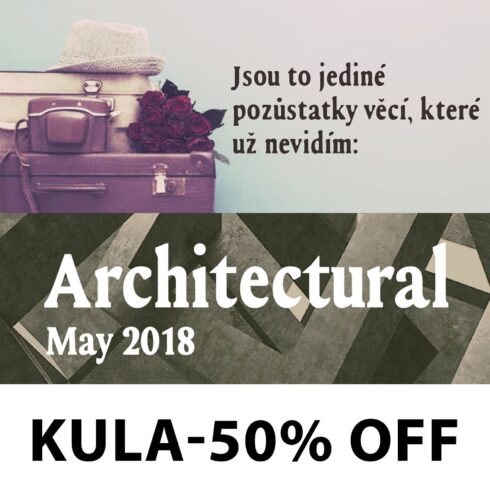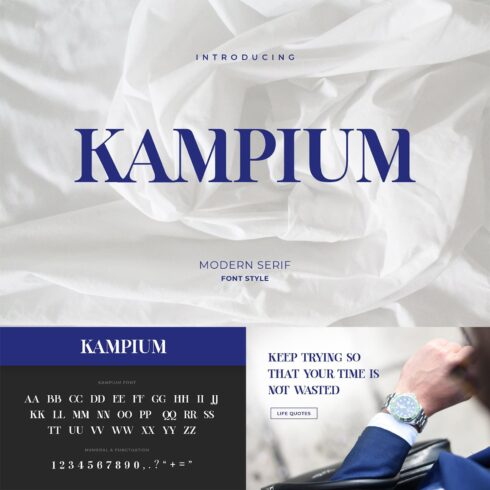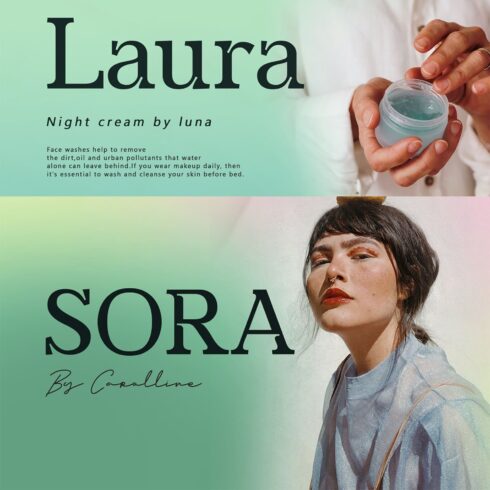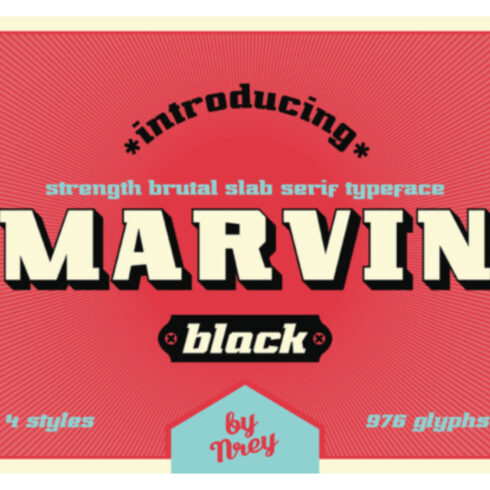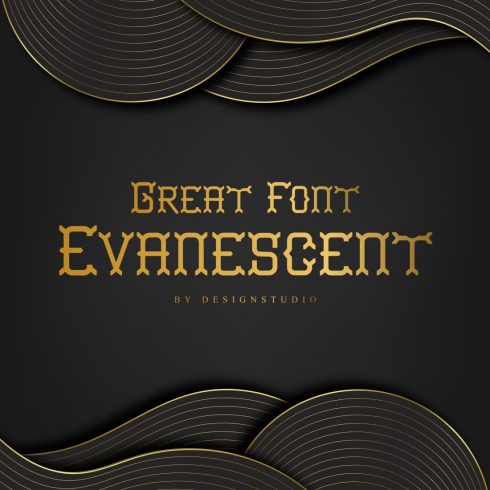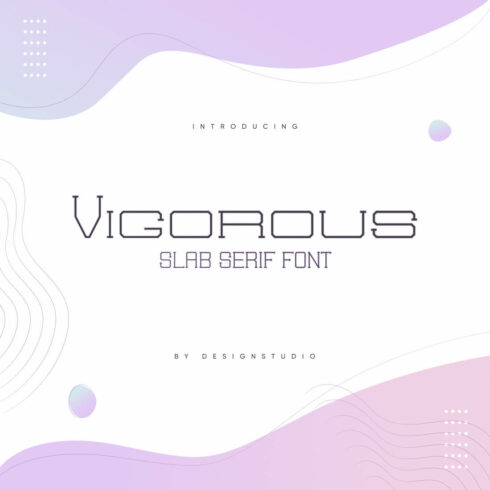
Slab Serif Fonts
If you want to make your content more interesting and engaging, you should consider using one of the slab serif fonts in the collection below. Among the available bundles, you can find many ultra-minimal, modern, condensed, or wide options. This is more than enough variety to emphasize your creativity in editorial, web, modern branding, apparel, packaging, and other design projects.“`html
Slab Serif Fonts Table
Slab Serif Font style Where to use the fonts?
Aptifer Slab (Black, Black Italic) Being devoid of overwhelming details, Aptifer Slab fonts fit well into the text flow. They don’t disturb your eyes, which makes reading convenient. This is why Aptifer Slab Serif font is widely used in newspapers and magazines, for book typography, corporate design, and signage.
Xenois Slab (Heavy, Heavy Italic) Xenois Slab fonts feature an incredible combination of different designs that can provide solutions for various design projects. These can be corporate reports, business correspondence, movie credits, or marketing campaigns. Having the same cap height, lowercase x-height, stem weights, and character shapes, Xenois Slab serves as an incredibly complementary set of font designs.
Soho (Condensed Heavy, Compressed Heavy) Soho fonts are smart, distinct, and trendy. Their visual design combines the elements of Renaissance, enabling versatility for corporate identity, product marketing, text, and display use.
PMN Caecilia (Roman, Italic) PMN Caecilia fonts work perfectly well in interactive design and print environments. They are intended to mimic the writing of a broad nib pen with considerable changes in stroke thickness. Being friendly, versatile, and convenient typefaces, they make the content easy to read.
LinoLetter (Medium, Medium Italic) LonoLetter Slab font needs to be used with contemporary typesetting and printing technologies. Being known for clarity and objectivity, it is suitable for Desktop, Web, DigitalAds, ePub, Server, and other multimedia applications.
Siserrif (Semibold, Semibold Italic) The use of Siserrif fonts is required to establish priority, make emphasis, and give the right hints to the audience. Being effective attention seekers, they are widely used for making posters, brochures, newspapers, magazines, and web layouts. By giving a sophisticated vibe to the content, they make your message more striking.
Memphis (Light, Light Italic) Memphis fonts are marked with the geometric slab serif visual concept. They provide the clarity of a sans serif with increased readability. They are perfectly suitable for brand and display use.
Clarendon (Bold, Bold Condensed) Clarendon fonts are super popular all over the world. They are widely used for display applications such as posters and brochures printed with wood type. You have surely seen some of these fonts on the posters from the American Old West.
What are slab serif fonts used for?
The best slab serif fonts help create a more attractive visual design. This is why they are often used for editorial, web, stationery, apparel, packaging, and other design projects.
What is the difference between a regular serif font and a slab serif font?
Serif fonts feature high contrast between thick and thin strokes in the letterforms. Meanwhile, slab serif fonts can be recognized from their blocky serifs which are as thick as the letter strokes themselves.
What is slab serif used for?
Slab serif fonts are typically used for headlines, posters, billboards, logos, and everything bold. The structure of the slab serif is excellent at grabbing attention with its exaggerated design.
What is a slab serif font used for?
The slab serif typeface is characterized by thick, block-like serifs. Popular slab serif fonts may be either blunt and angular or rounded. The best slab serif fonts are used on book covers, posters, advertisements, logotypes, etc.
What is the difference between sans serif and slab serif?
Classic slab serif fonts were created for newspaper writing when the quality of the paper used to be poor. Modern sans serif does not have serifs, the tiny little feet. Sans serif avoids all decorative elements along the top bars and central beams.